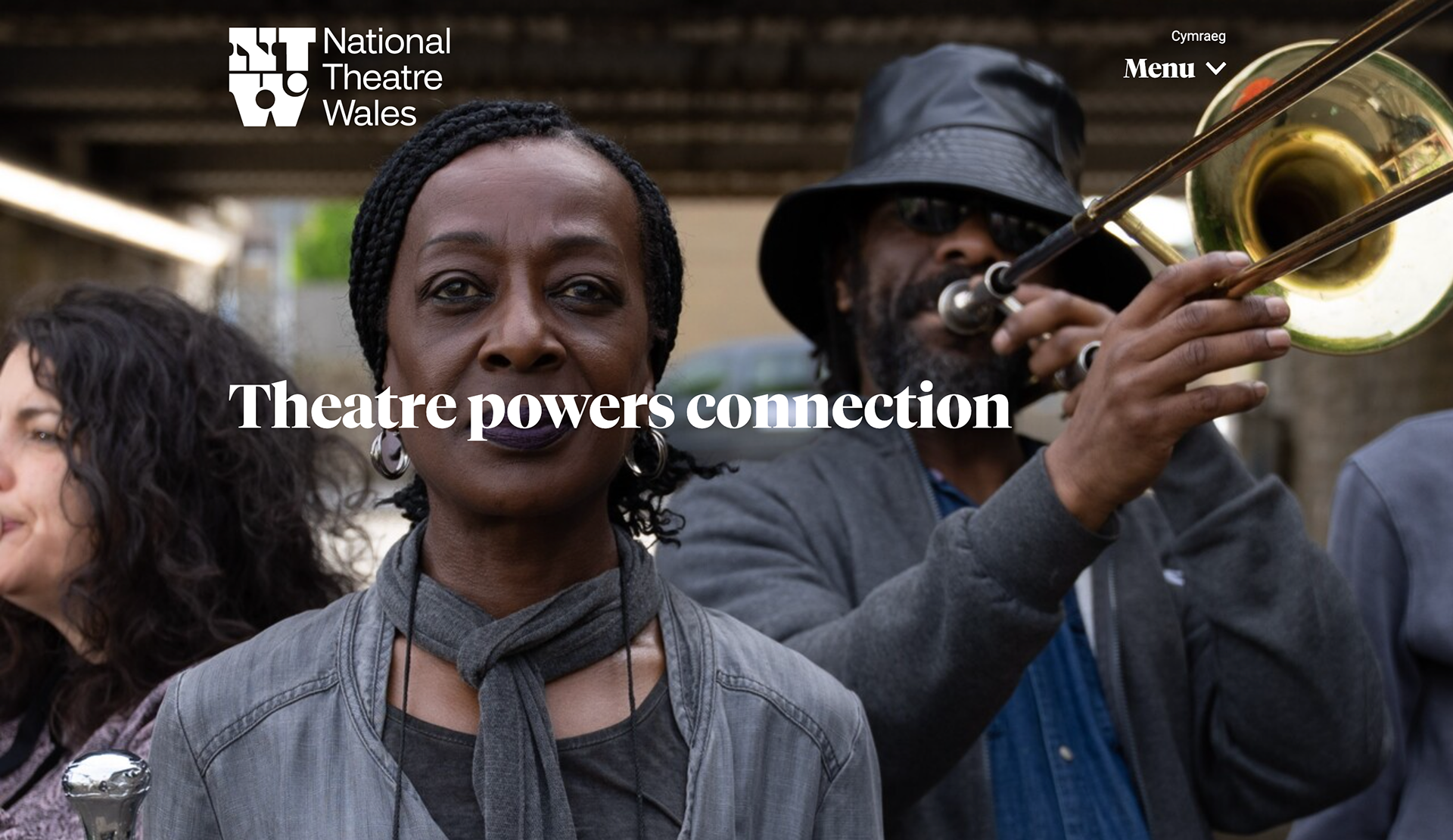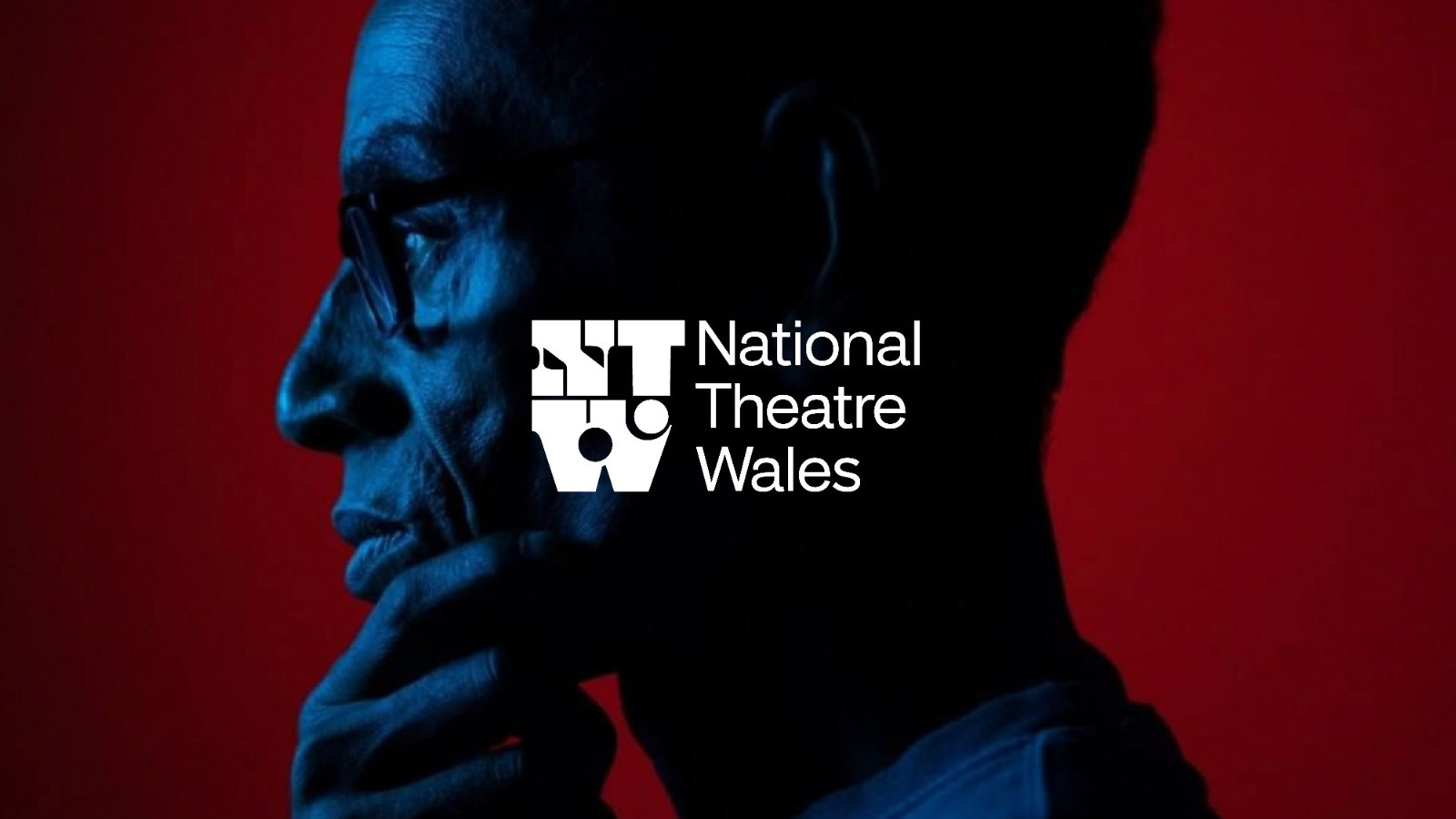
National Theatre Wales needed a rebrand, and I was happy to be asked to draw them a new logo that was contemporary
and had character. It also needed to sit well as it's own self-contained unit. The graphic shapes can work on their own or
be cropped into, abstracted and used as a container for imagery and type.